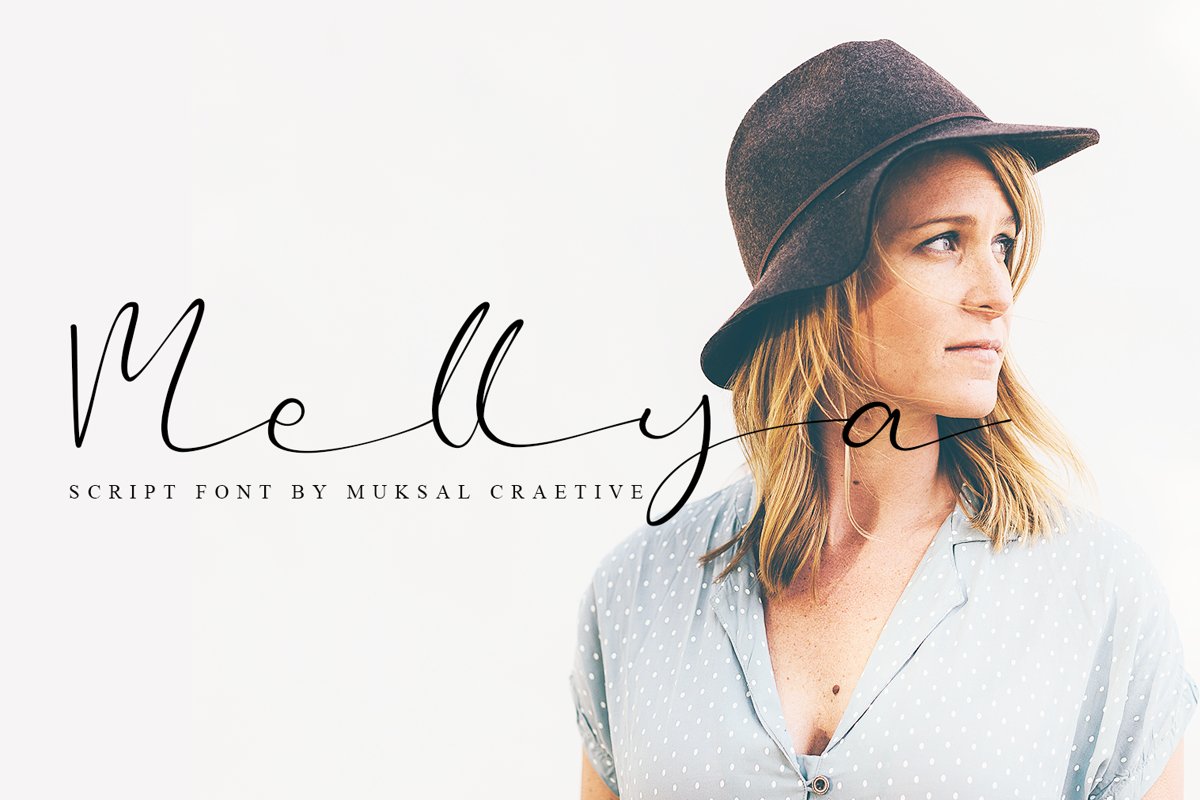
Mellya
Mellya a  fresh & modern script with a calligraphy style, decorative characters So beautiful on invitation like greeting cards, branding materials, business cards, quotes, posters, and more!!